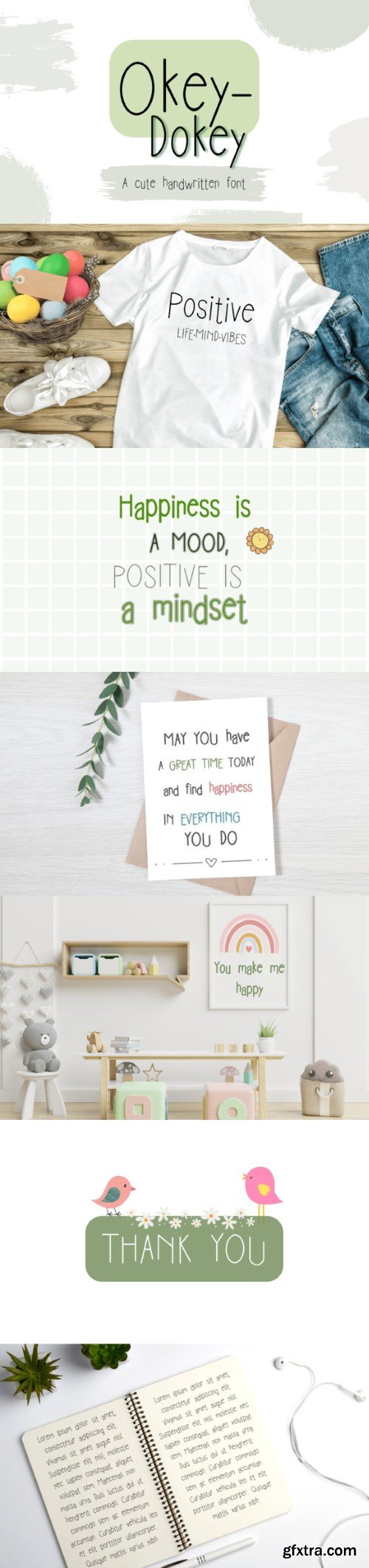
Okey-Dokey is a handwritten font that is cute, playful, neat, and clean. It is good for digital prints, phrases for Facebook and Instagram, planners, journals, and any occasion presentation.